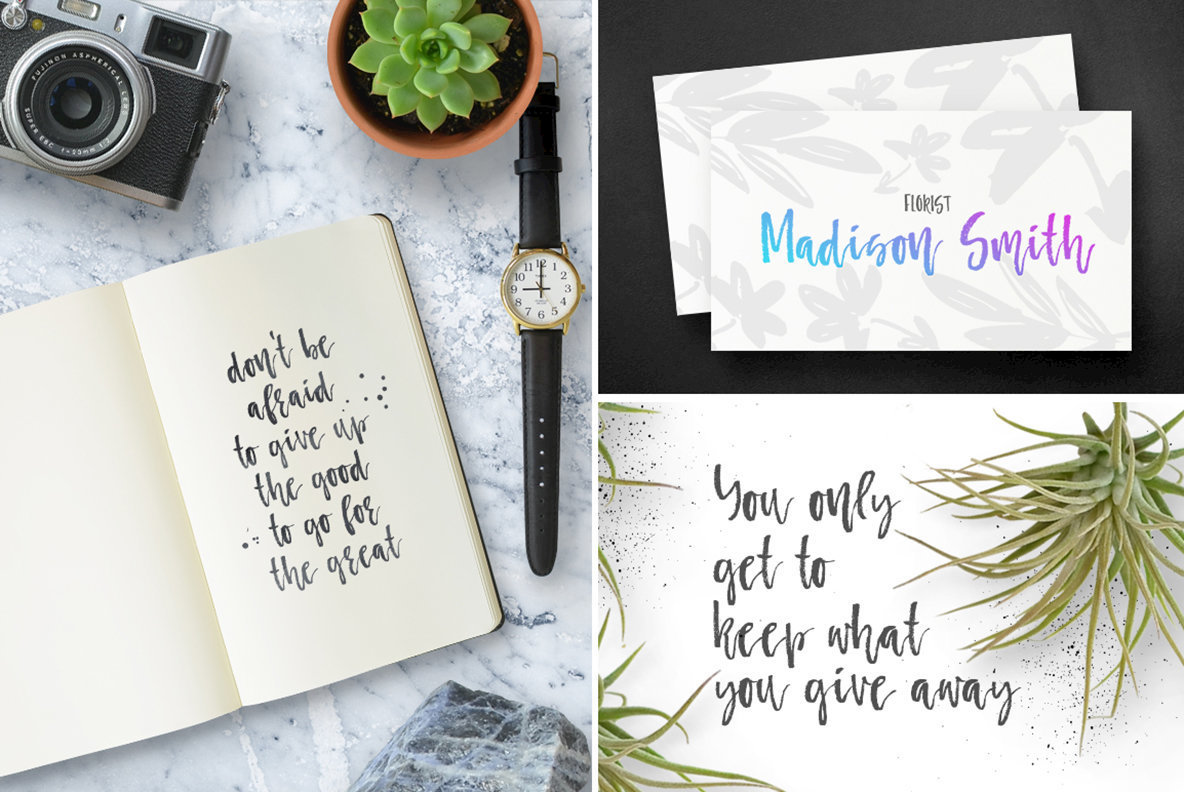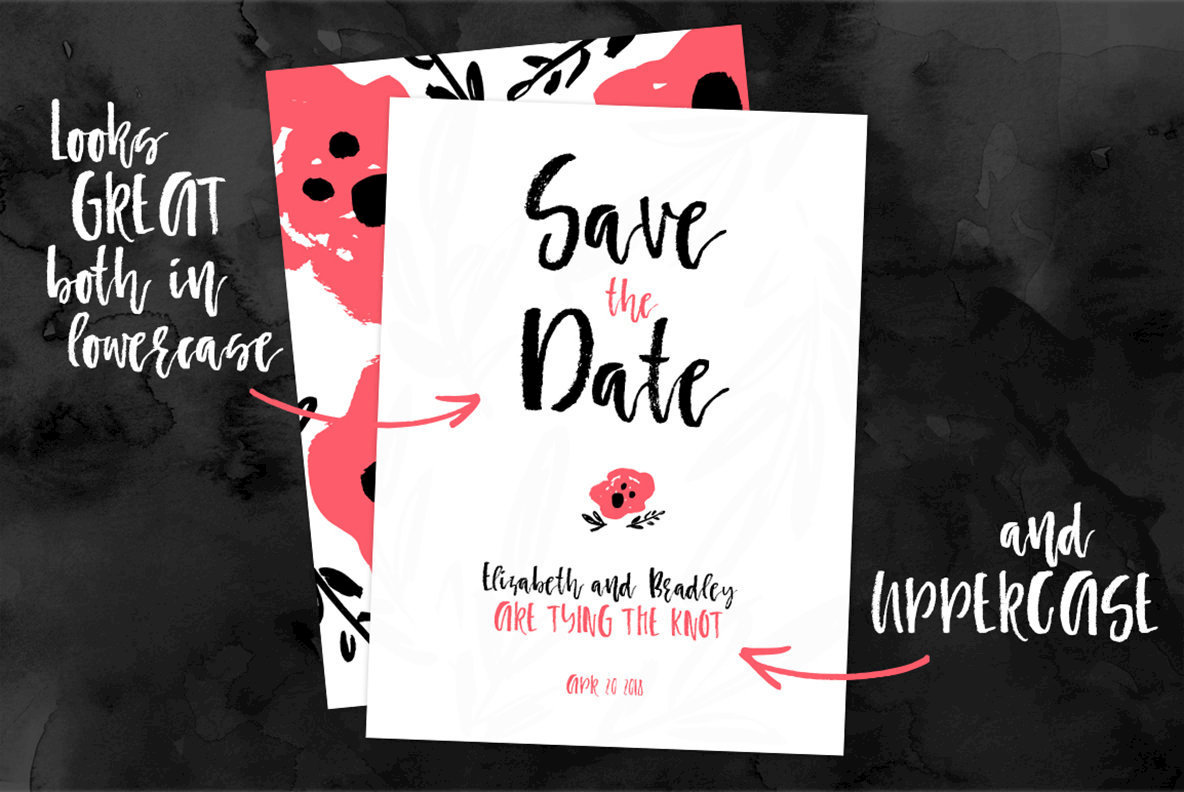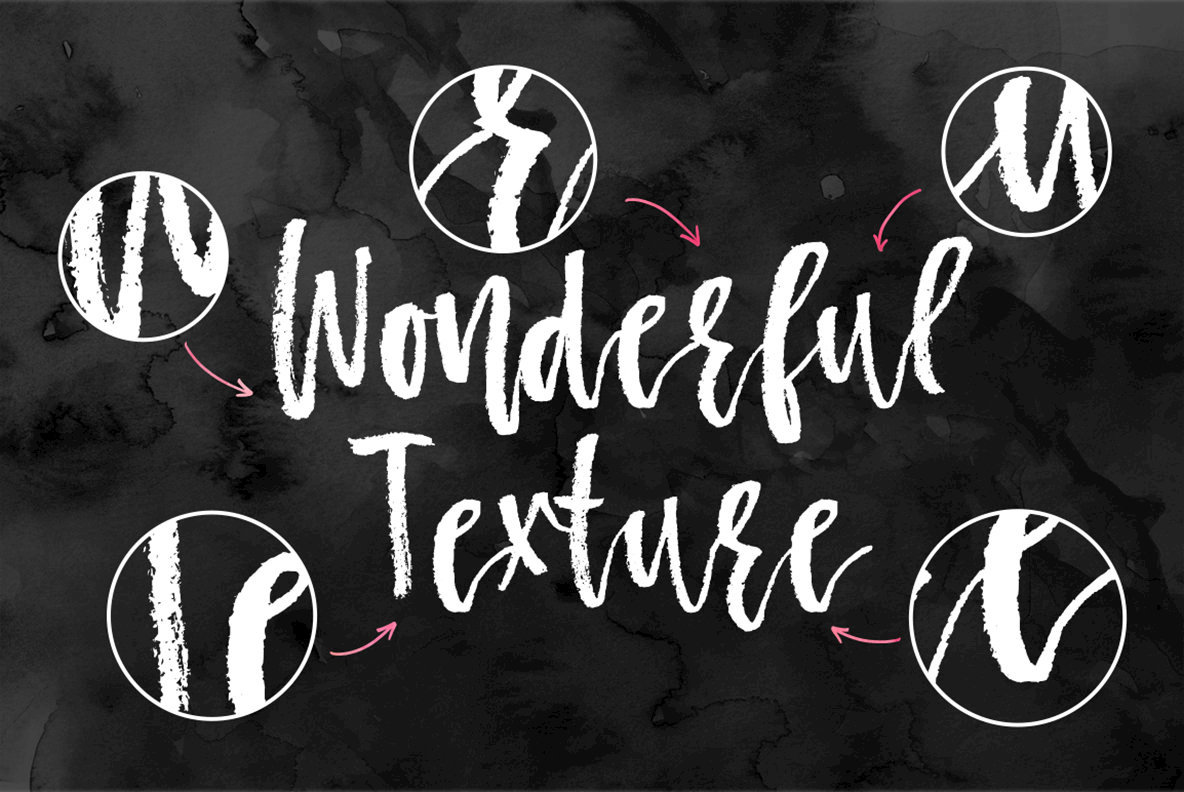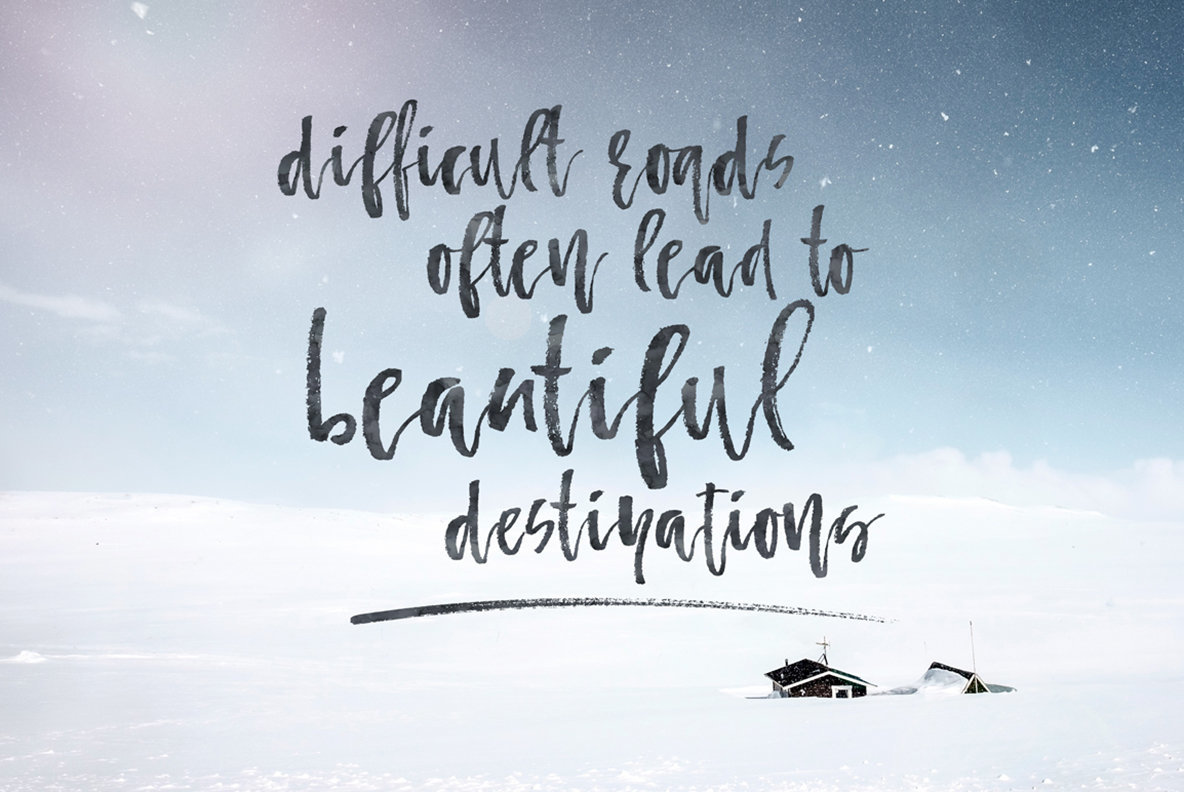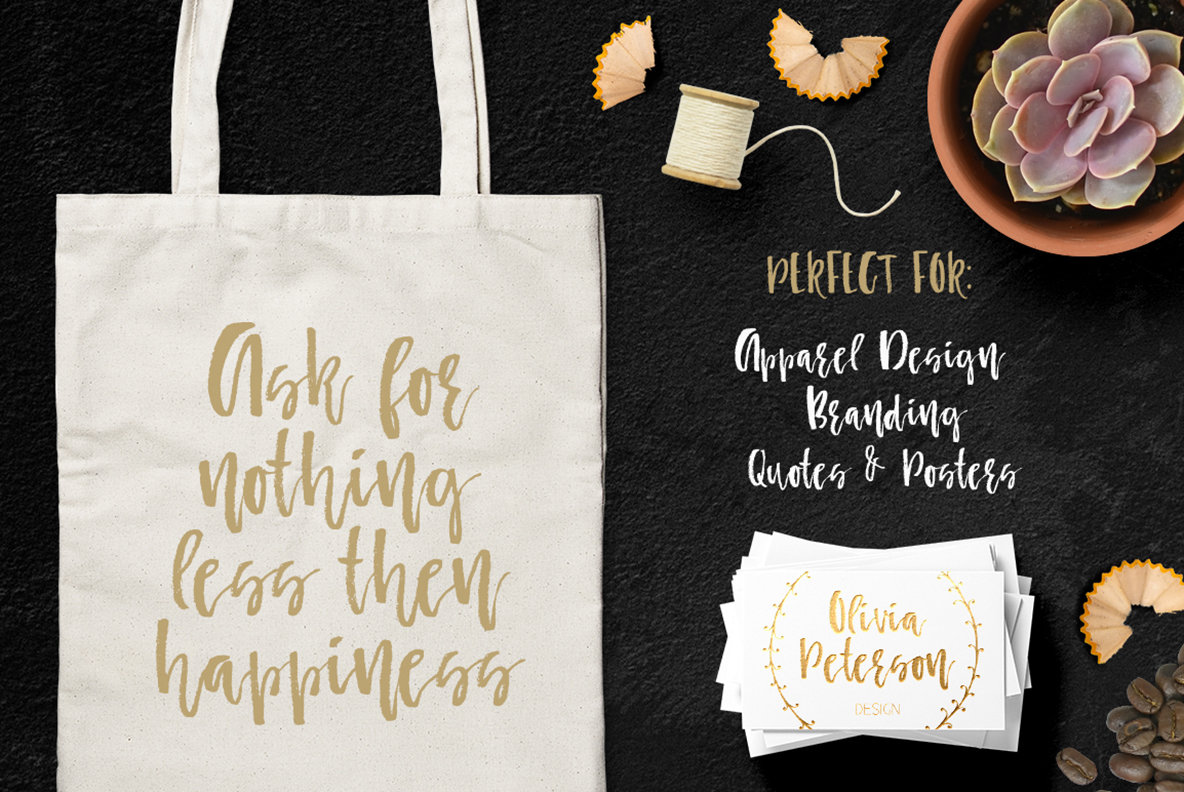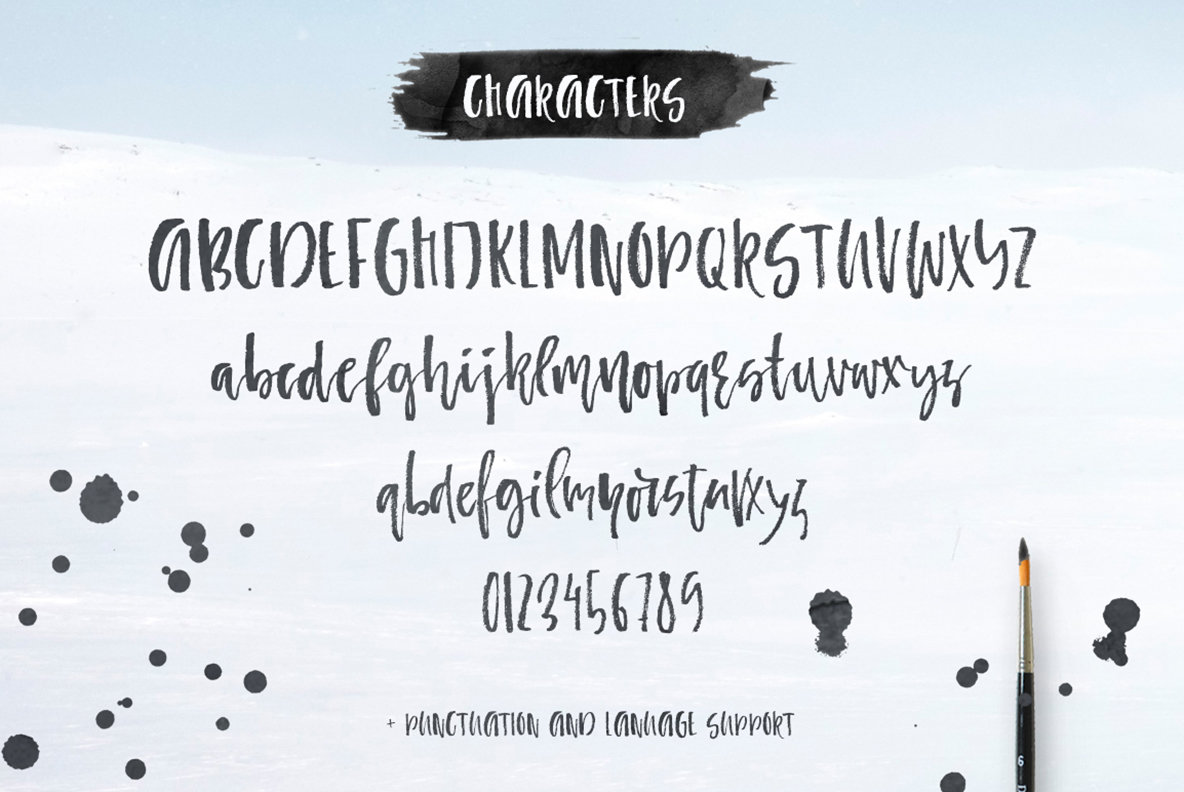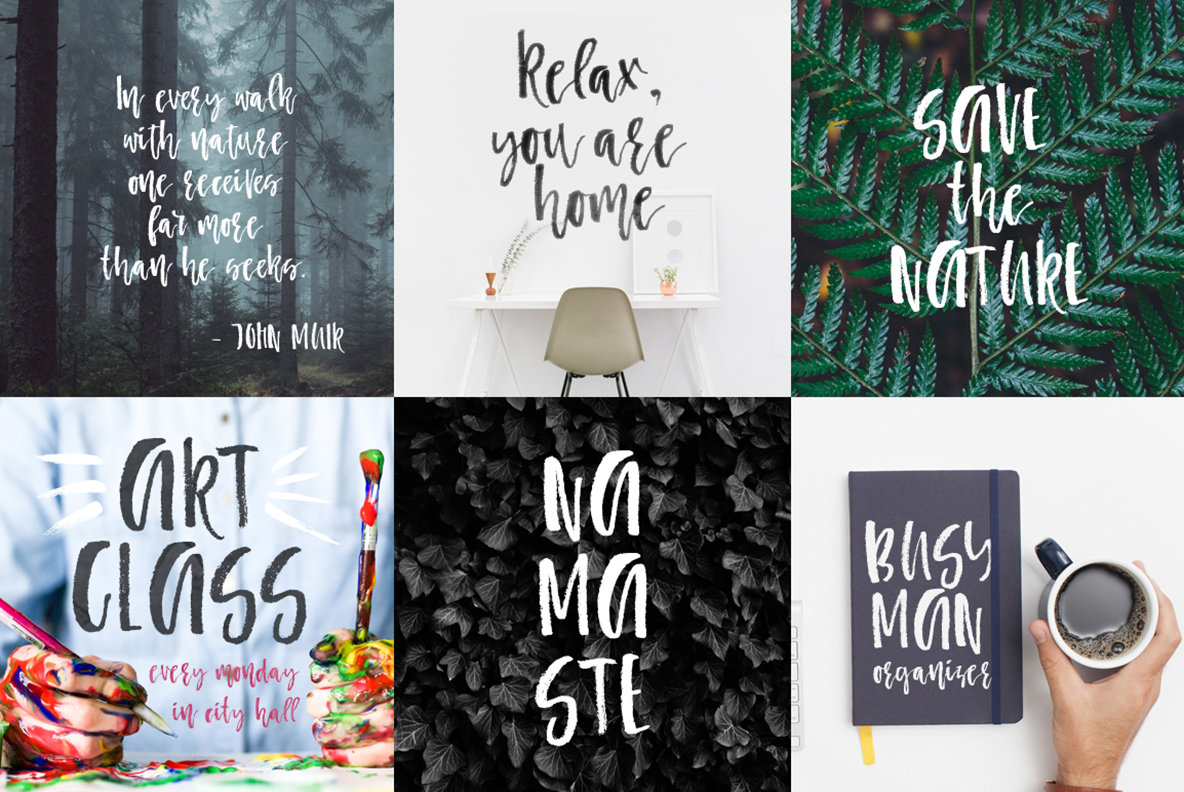
Siberia Font
Siberia
Usually I struggle a bit with font names - I want them to represent a character of the font, yet not to be too long and awkward. Name for this font came instantly: it's very rough and yet beautiful, like Siberian region of Russia.
Siberia is one of those rare fonts that look great both in all-uppercase and normal (uppercase + lowercase) mode. It has very rough organic texture, which looks great on print (like you've just wrote it by yourself with a dry brush!).
Main Features:
lowercase with rough organic texture
beautiful uppercase that can be used separately - PUA coded
language support for most of european languages (please test your language in the test window below, if some characters that you need are not there - please do not hesitate to contact me and I’ll do my best to add them)